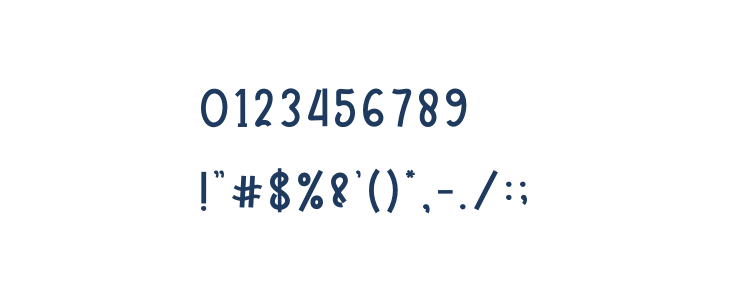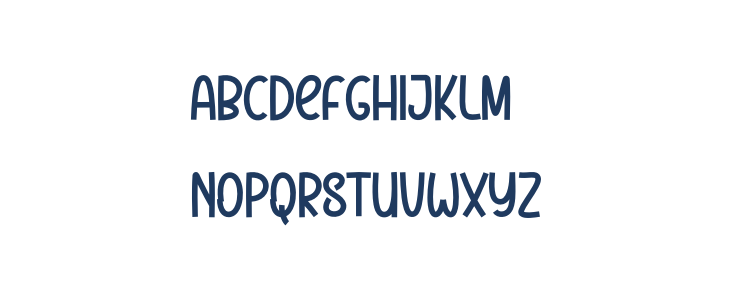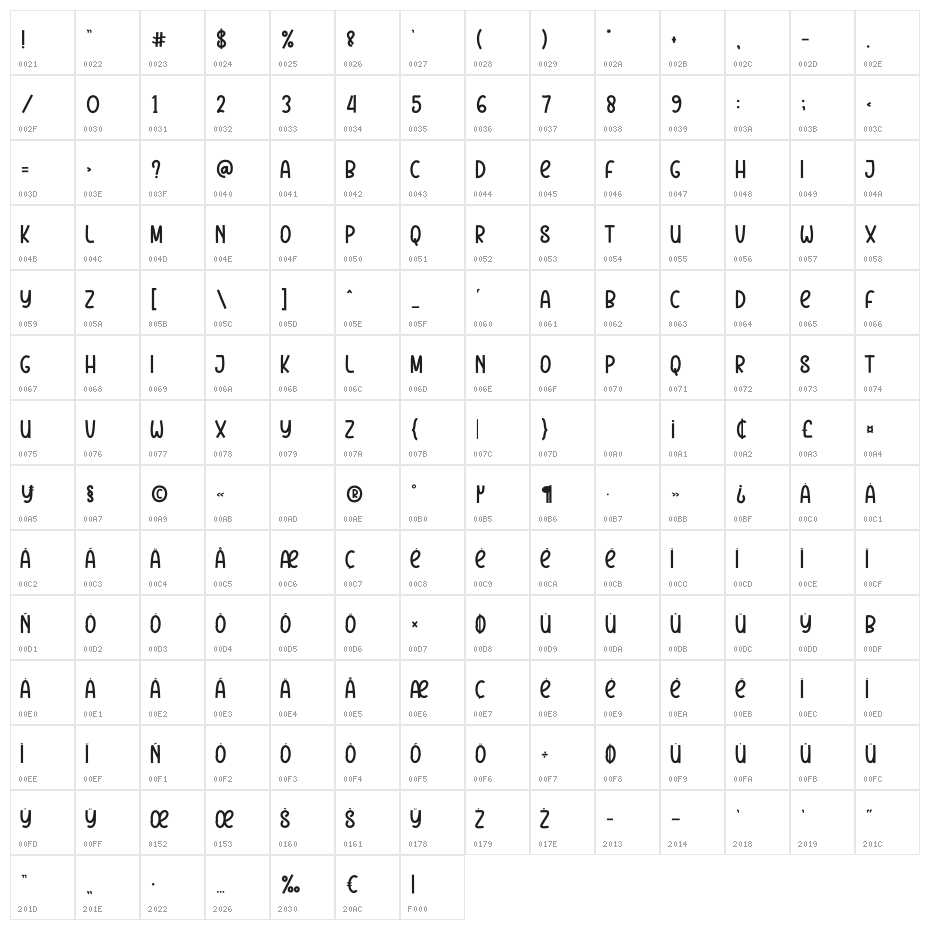
Family Christmas Font
Family Christmas Description
A playful, rounded sans-serif font with a hand-drawn feel, featuring consistent stroke width and slightly quirky letterforms that evoke a friendly and informal tone.
| Overall Style | Decorative, Playful, Handwritten |
| Use Case | Headlines, Logos, Greeting cards, Posters |
| Proposed Projects | Holiday cards, children's books, party invitations, festive branding, casual posters. |